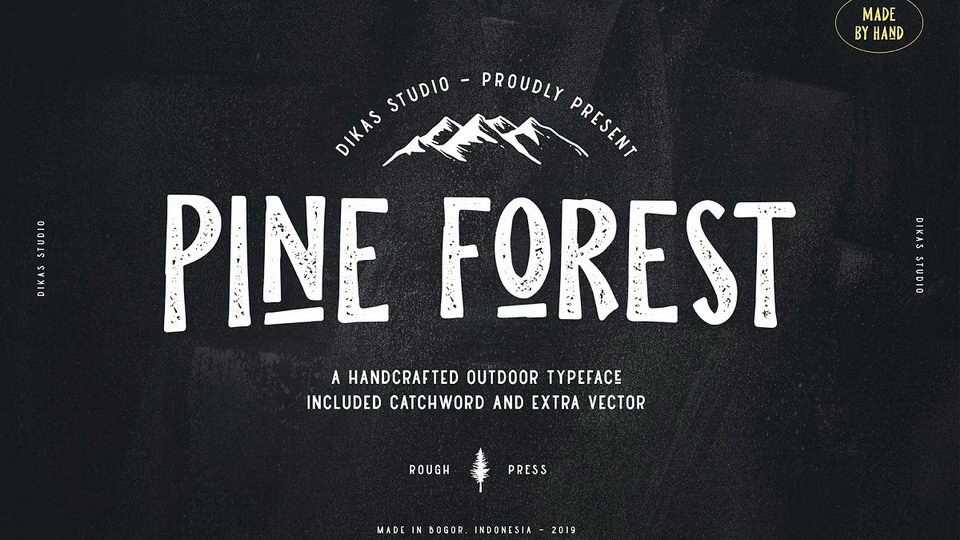
Download Pine Forest font, a display sans serif typeface inspired by outdoor activity with hand drawn style and playfull character. Pine Forest is suitable and applicable to create typography design, branding, logos, product packaging, invitation, qoutes, t-shirt, label badge poster etc.
Designer: Dikas Studio